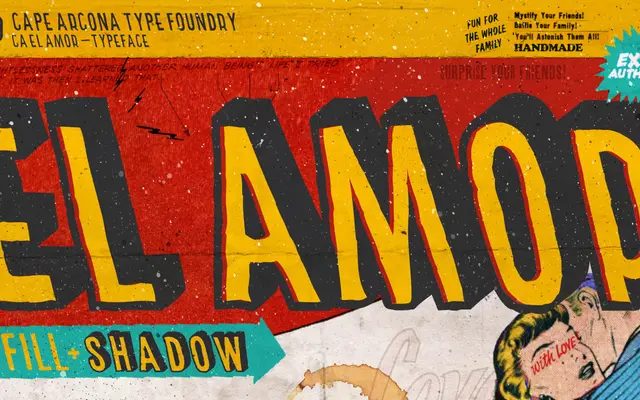
CA El Amor
Cape Arcona · Thomas Schostok
A reversed oblique display face in two layerable styles, built for comics, Halloween and spooky graphic work.
Designed by Thomas Schostok, CA El Amor offers Regular and Fill styles intended for layered use, where the Fill sits behind or offset from the Regular outline to produce depth and dimension. The reversed oblique gives it a lively, energetic slant that suits poster and headline work rather than body copy. Despite its display focus, the character set is unusually broad for the genre, covering Central European and Western Latin encodings across 333 glyphs.
Classified by the foundry as Display Distressed; a reversed oblique headline face with vivid, crisp outlines designed for comic, Halloween and spooky contexts.